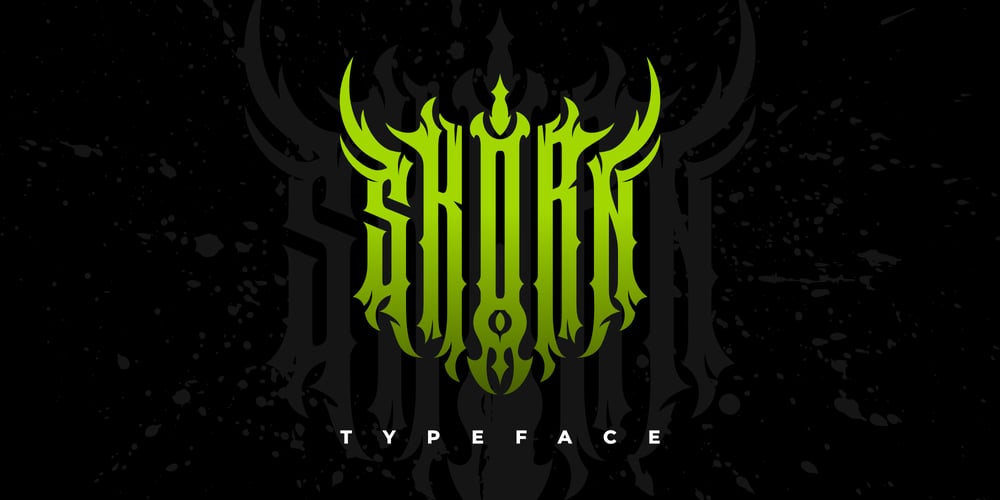
Skorn Font Family was designed by Dicky Safaat Fuadi and published by Your type. Skorn contains 1 styles and family package options. Skorn is a font with a black metal logo theme. You can easily create black metal logos using this font. It is suitable for various purposes with a black metal theme or similar. It can also be used for merchandise, t-shirt designs, book covers, stickers, and more. Don’t miss out on adding this unique and powerful tool to your design arsenal. Get your hands on Skorn today and unleash the full potential of your creative projects!